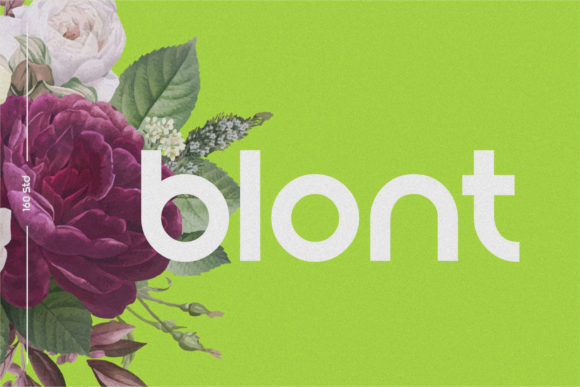
Dive into the world of Blont, a sans serif font that radiates simplicity, sleekness, and a touch of techno flair. Designed by the esteemed 160 Studio, Blont stands as a testament to the power of minimalism, where less is undeniably more.
With its clean lines and unassuming demeanor, Blont seamlessly blends into any design landscape, like a whisper of elegance that enhances without overpowering. Its versatility knows no bounds, making it an ideal companion for a myriad of creative projects, from captivating headlines and logos to slick brochures and social media posts.
Elevate your designs with Blont, a font that exudes an air of sophistication and modernity. Let its minimalist charm work its magic, creating visual harmony and leaving a lasting impression on your audience.
Step into the realm of Blont, where simplicity reigns supreme, and experience the transformative power of a font that speaks volumes through its understated grace.